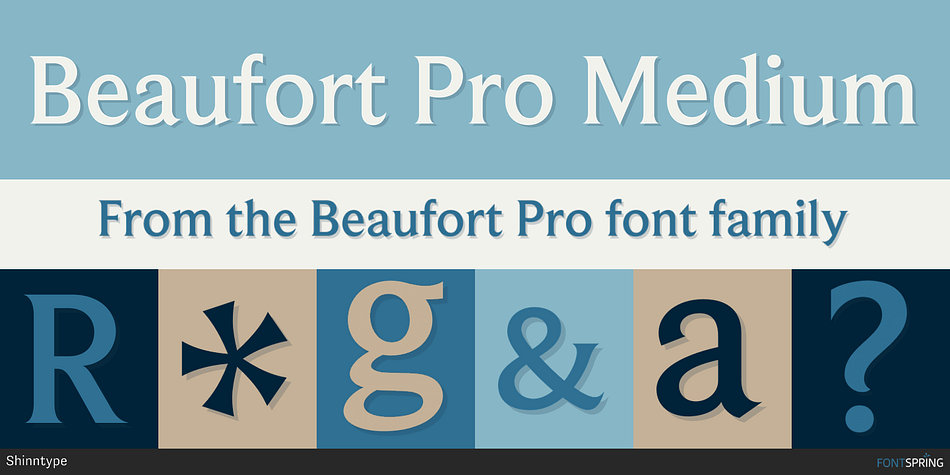
Beaufort Pro is a serif font family. This typeface has ten styles and was published by Shinntype.
Beaufort Pro Medium
Engaging the issue of scalability, Shinn configures vectors asymptotically, for serifs of virtually infinite sharpness, irrespective of size and limited only by output resolution. Putting that aside, the typographer’s eye ponders a scale of effect between awesomely huge and preciously tiny. How big is enough?—question for a finite planet.